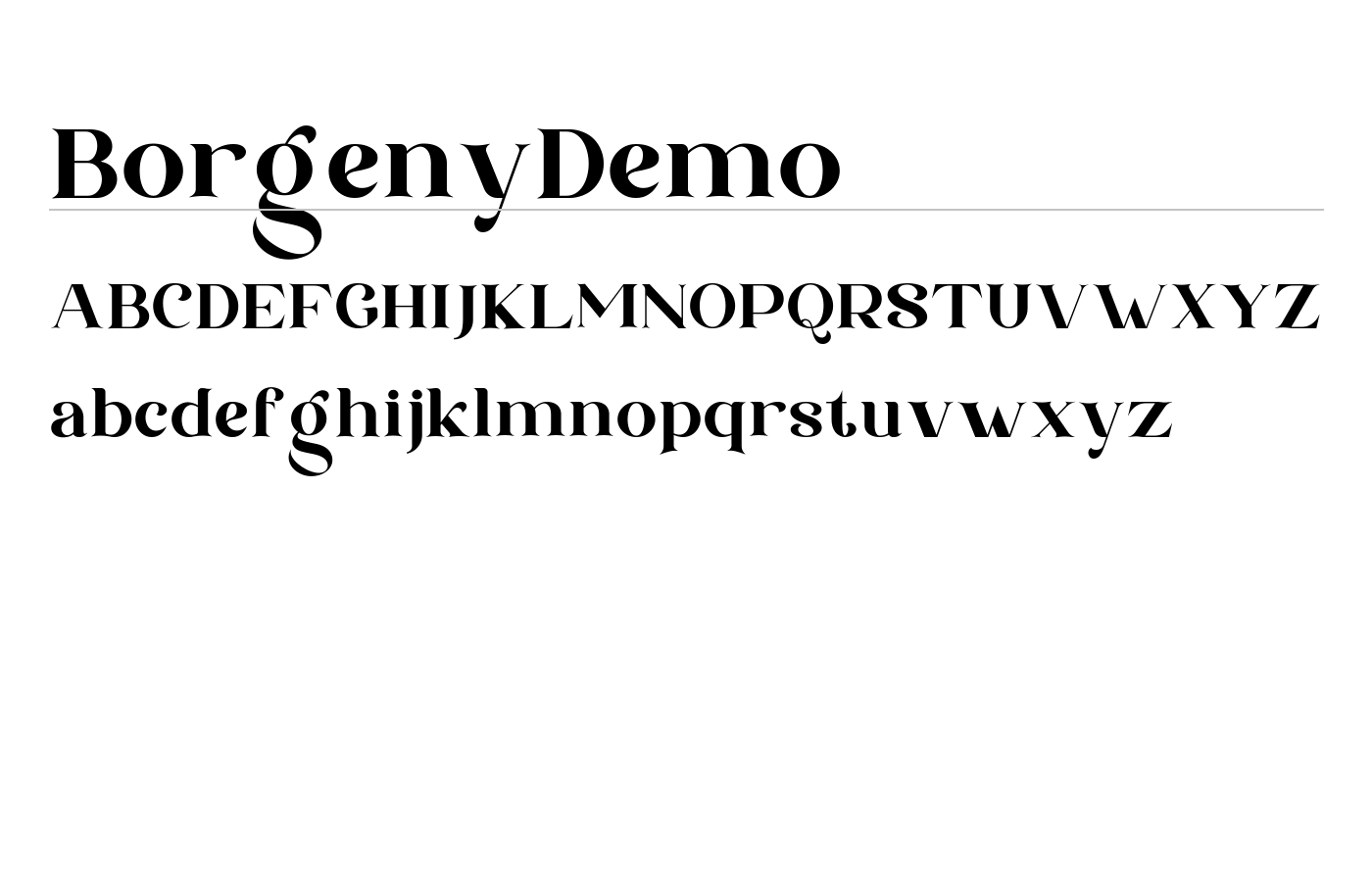
BorgenyDemo is a stylish serif font with strong contrast between thick and thin strokes, featuring sharp, elegant serifs and distinctive letterforms that blend classic sophistication with a modern twist. Its medium weight and balanced proportions make it ideal for high-end branding, editorial headlines, and luxury packaging where a refined and timeless look is desired. This font’s unique character shapes add personality, making it a great choice for designs seeking a blend of elegance and creativity.
BorgenyDemo Font